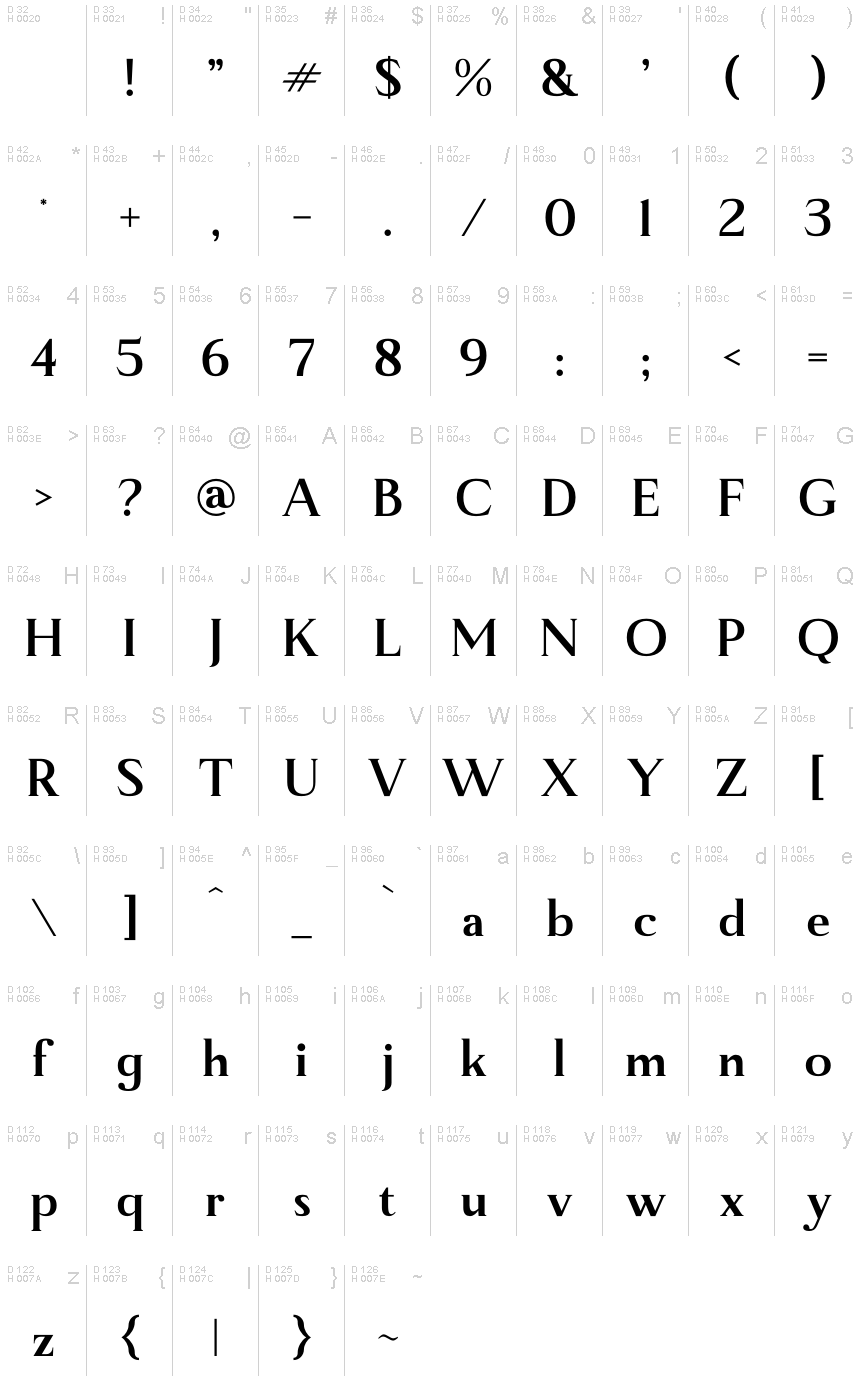
Manfitte Bold
Manfitte Bold, a serif font crafted by Storytype Studio, exudes a commanding presence. Its bold strokes and sturdy serifs convey a sense of authority, while its subtle curves lend an air of refinement. This font's balanced proportions and harmonious letterforms create a timeless aesthetic, making it well-suited for formal and professional design applications.
The font's versatility shines through its ability to seamlessly adapt to a wide range of design contexts. From eye-catching headlines to elegant body text, Manfitte Bold's strong personality can elevate the visual impact of any project. Its robust character makes it an excellent choice for branding, editorial design, and signage, where a bold and confident typographic statement is desired.